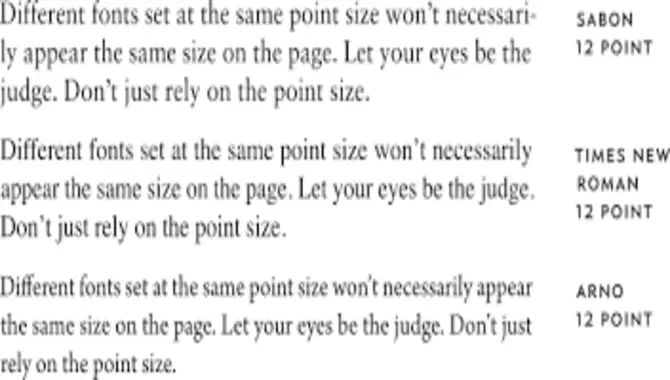
Smallest 12 Point Font
The “smallest 12 point font” is the font size used in the footnotes of the Oxford English Dictionary print edition.
The typeface is “Oxford” and was specifically designed for the OED. It is slightly smaller than the standard 12-point type and is used to fit more text on each page.
What Is The Smallest 12-Point Font?
The smallest 12-point font is Arial Narrow. This font is great for documents that must fit much text into a small space.
One way to use Arial Narrow effectively is to create a multi-column layout. This can be done in Microsoft Word by going to the Layout tab and selecting Columns. Then, choose the number of columns you want and click OK. Your text will flow evenly into the columns you’ve created.
Arial Narrow can also be used for body text in newsletters. This is a great way to save space and fit more content onto each page.
If you want to create a document that’s easy to read and doesn’t take up a lot of space, Arial Narrow is the perfect font for you.
What Is The Name Of The Smallest 12-Point Font?
The name of the smallest 12-point font is Pico. Pico is one of the smallest fonts available and is often used for small print.
How Many Fonts Are Smaller Than The Smallest 12 Point Font?
How Many Fonts Are Smaller Than The Smallest 12-Point Font
The answer to this question may surprise you – quite a few fonts are smaller than the smallest 12-point font! Here is a list of some of the most popular ones:
8 point:
Helvetica
Times New Roman
Arial
6 point:
Courier
Verdana
Georgia
4 point:
Trebuchet
Tahoma
So, as you can see, quite a few fonts are smaller than the smallest 12-point font. If you are looking for a tiny font, you might want to consider one of these options.
Which Font Is Smaller Than The Smallest 12-Point Font?
Which Font Is Smaller Than The Smallest 12-Point Font
There’s no definitive answer to this question since different fonts can have different x-heights, meaning some lowercase letters can appear smaller than others. In general, though, any font that’s 12 points or smaller will be pretty small.
One example of a very small font is Arial Narrow, a popular choice for captions and small print. It’s available in sizes down to 2 points, about as small as most fonts get.
If you’re looking for an even smaller font, some micro-sized fonts are available for use in very small sizes. Some of these are only a few pixels tall, so they’re not readable at anything other than a very small size.
Ultimately, it depends on what you need the small font for. If you want something to use in a caption or other small text, any 12-point font or smaller should work fine. But if you need something tiny, you may need to look for a micro-sized font.
The smallest 12-point font is Arial. Hopefully, you are clear now. If you still have questions, feel free to comment below.